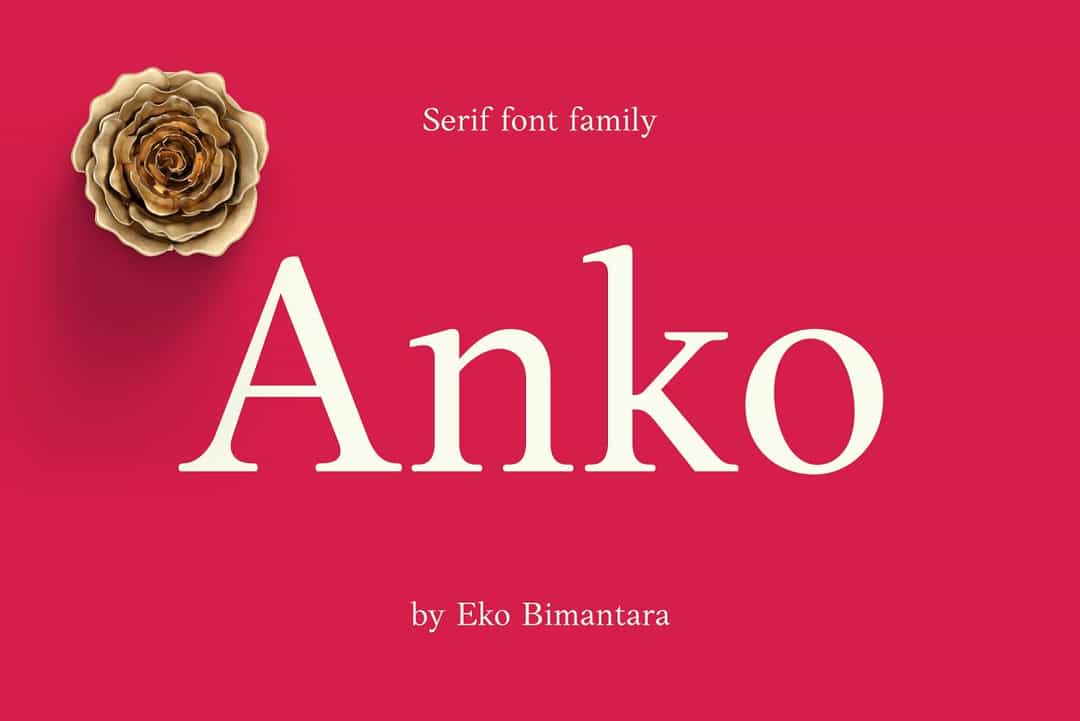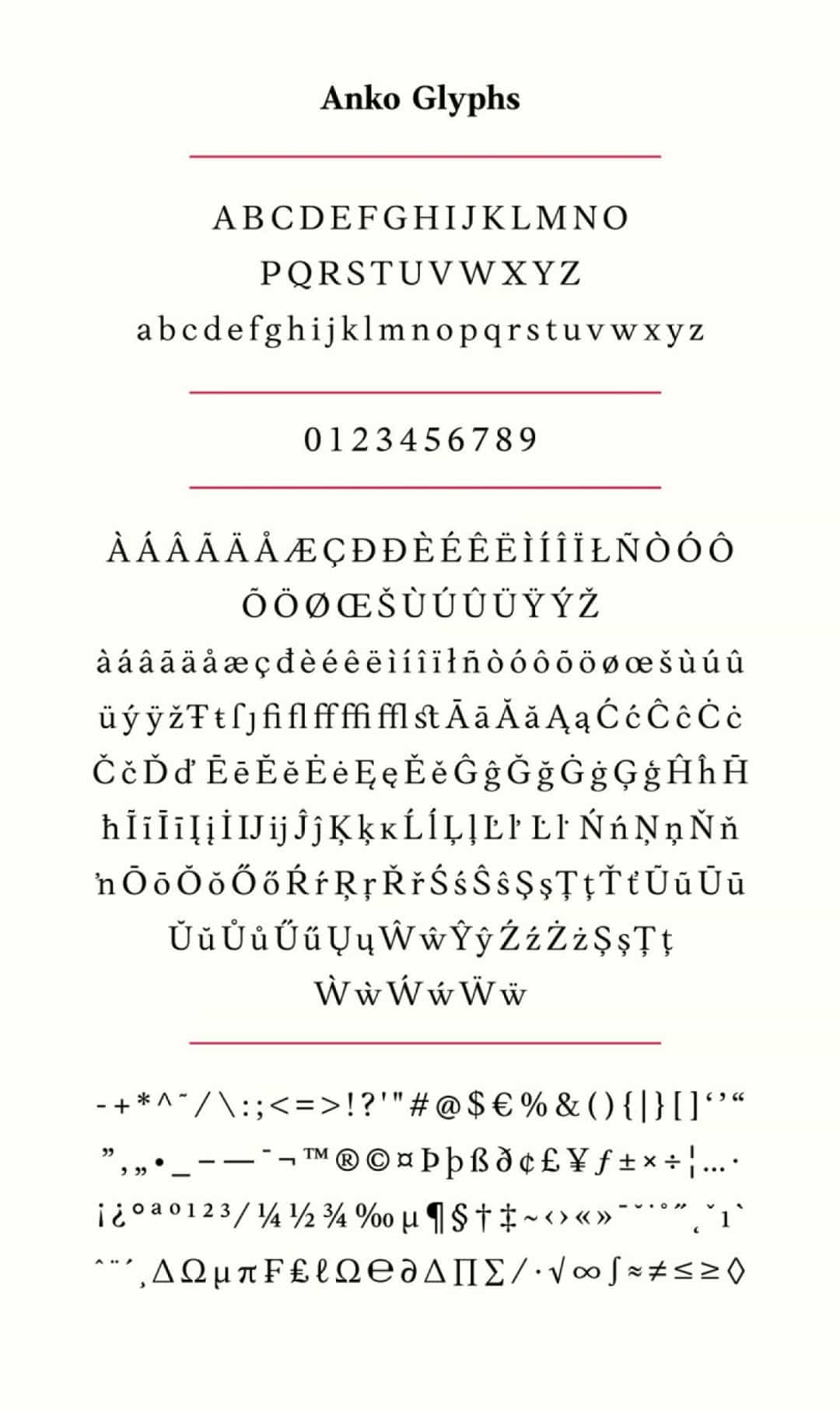
Anko can be best described as an amalgam of Old Style Roman serif font. The font’s glyphs feature extended length, flowing strokes, moderate contrast and soft edges in order to promote clarity while creating an inviting textual experience. Anko features 8 degree italics with organic forms redrawn lowercase letters for added warmth and inviting personality.